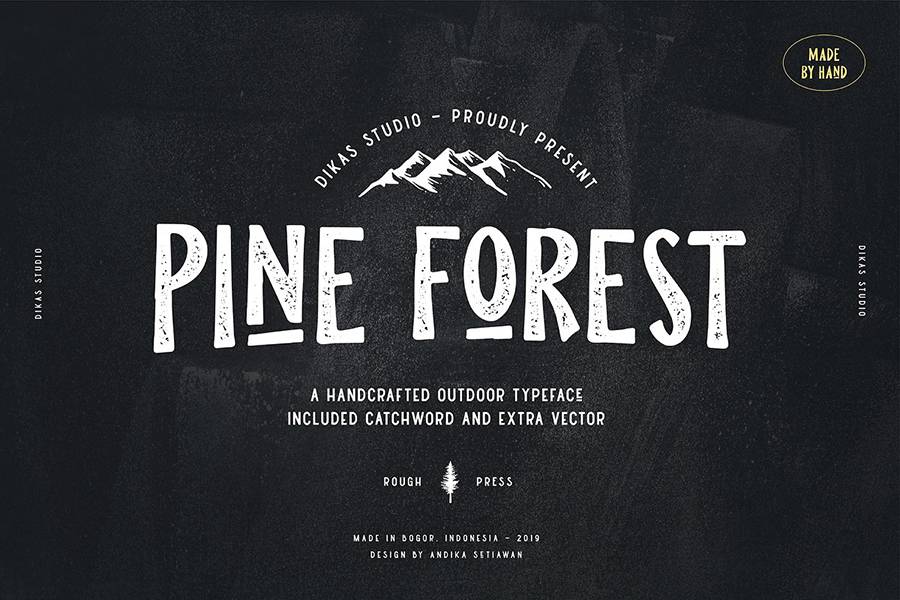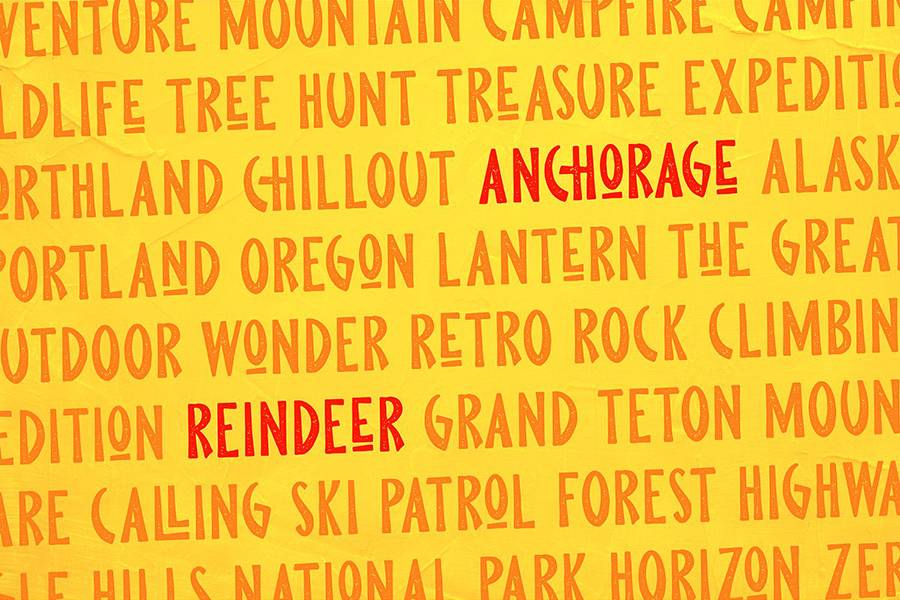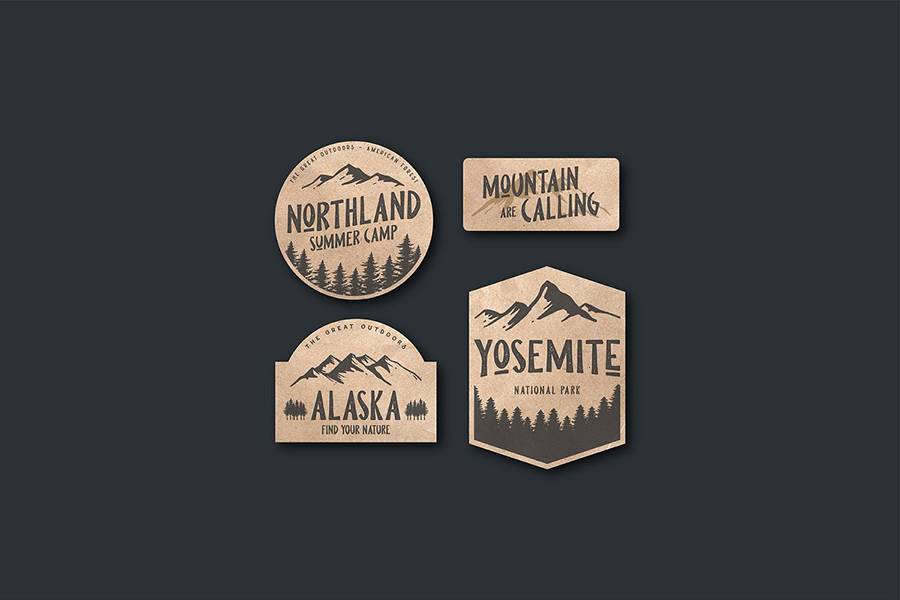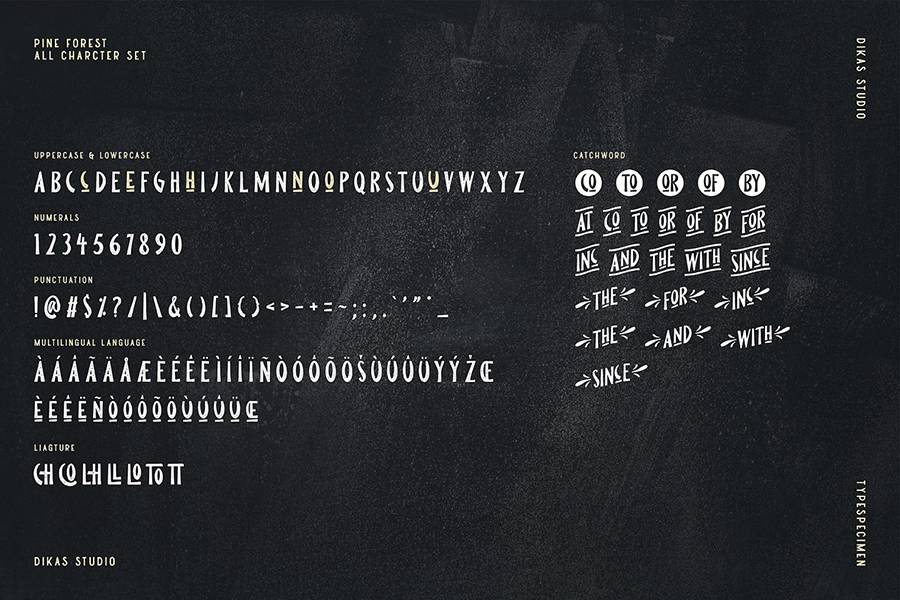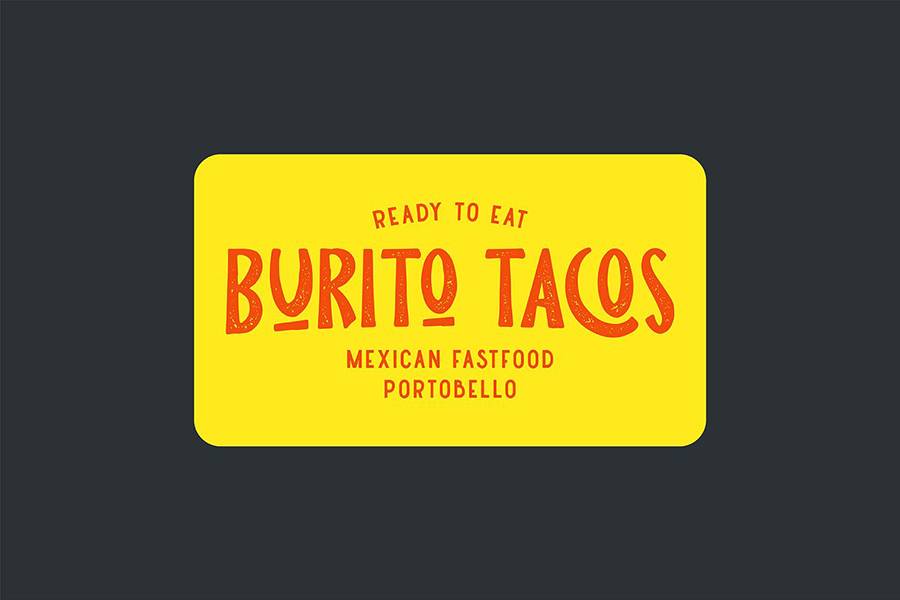
Pine Forest Outdoor is a playful, hand-drawn sans serif font characterized by tall, narrow letterforms with a textured, slightly distressed appearance, evoking a natural and rustic vibe. Its irregular shapes and whimsical details make it ideal for outdoor-themed designs, adventure branding, and casual, friendly headlines where a personal, handcrafted feel is desired. This font works best in creative projects looking to convey warmth and approachability while maintaining a bold visual impact.
Pine Forest Outdoor Typeface
About Pine Forest Outdoor Typeface
| Font family | Pine Forest Outdoor Typeface |
| Release date | 2019-05-29 |
| Designer | Andika Setiawan |